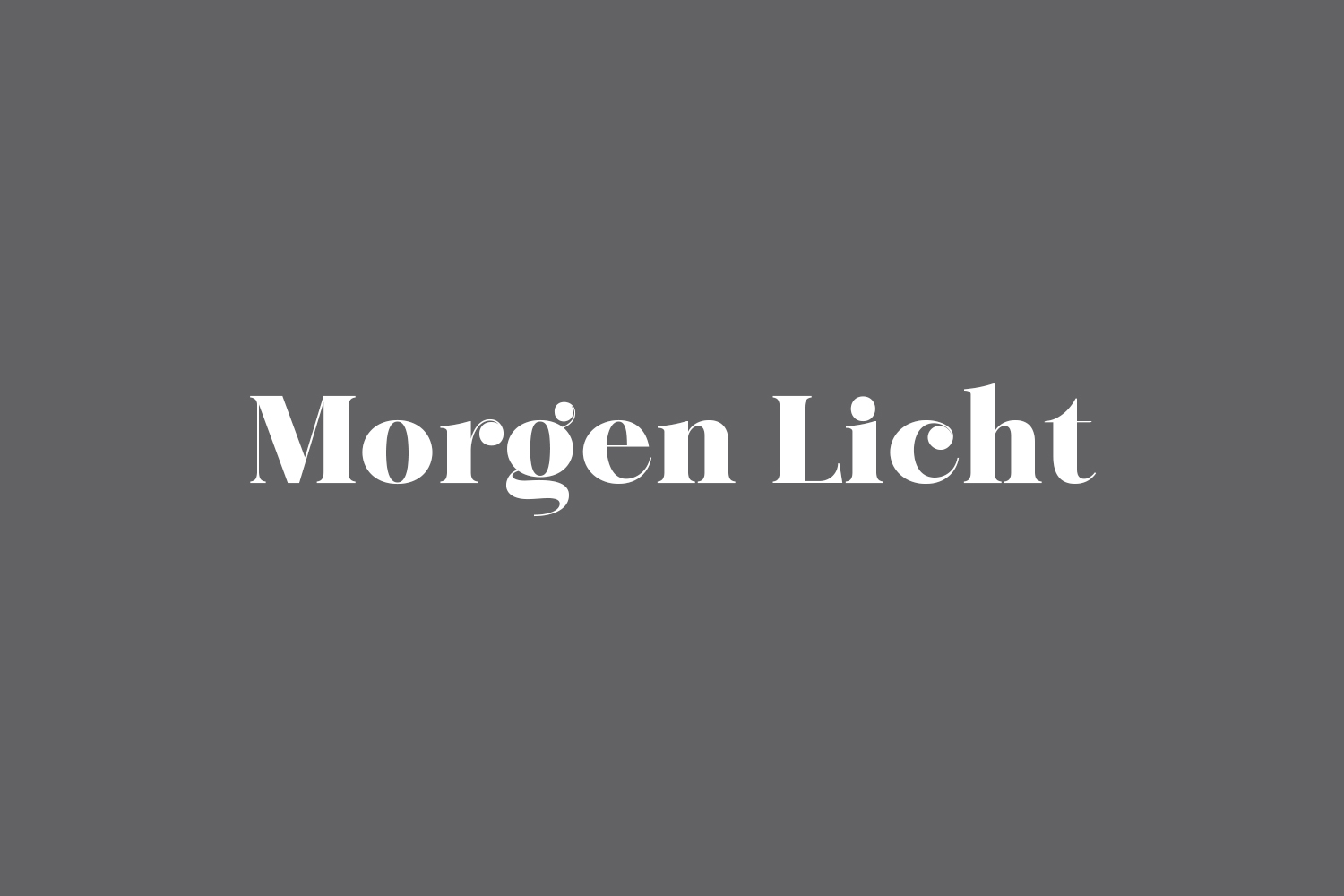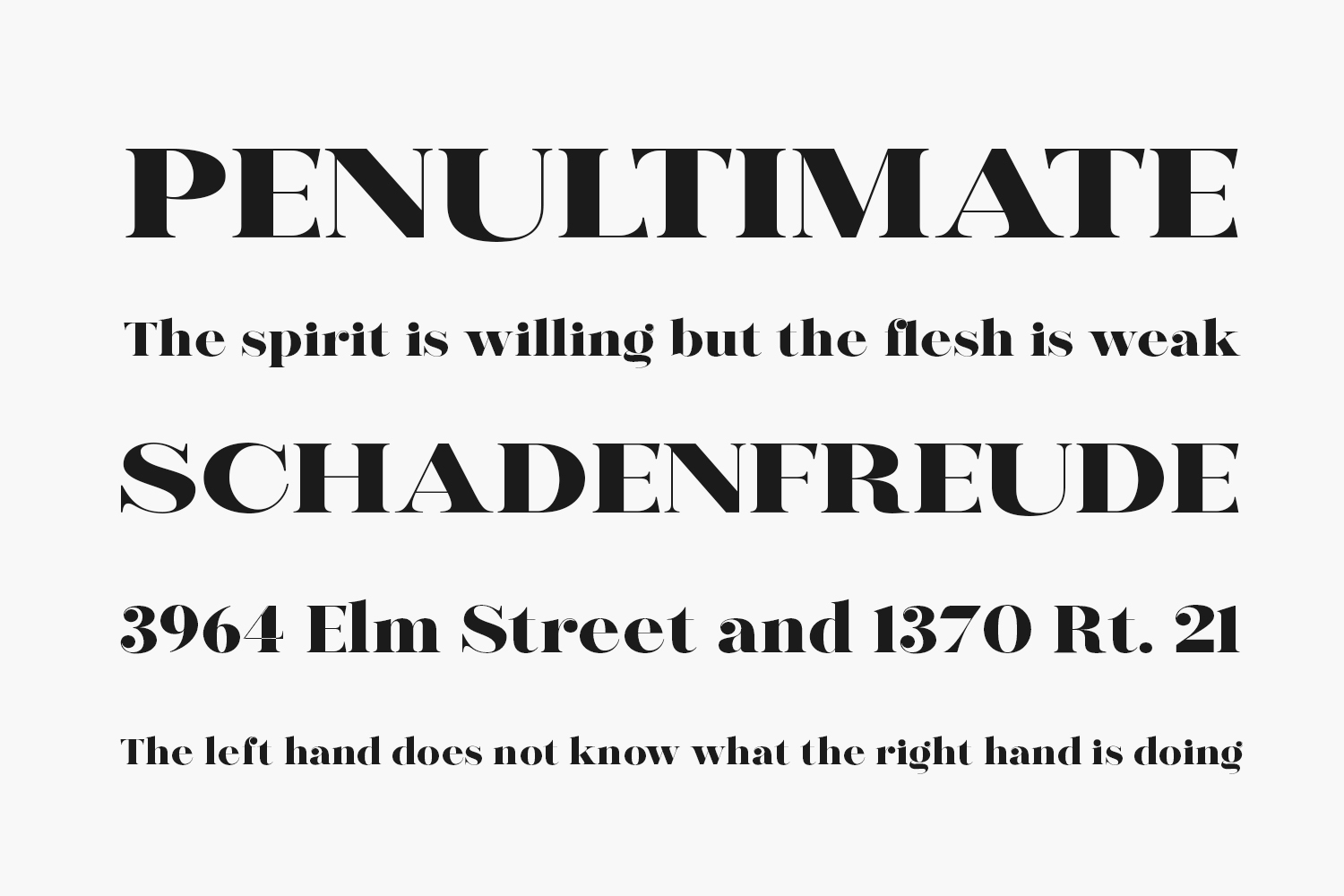
Morgen Licht Free Font is a powerful and elegant serif font. Distinct and modern, this font was masterfully designed to become a true favorite. Morgen Licht Free Font was designed by Handpik and is free for personal use only. Please purchase the full version for commercial use.